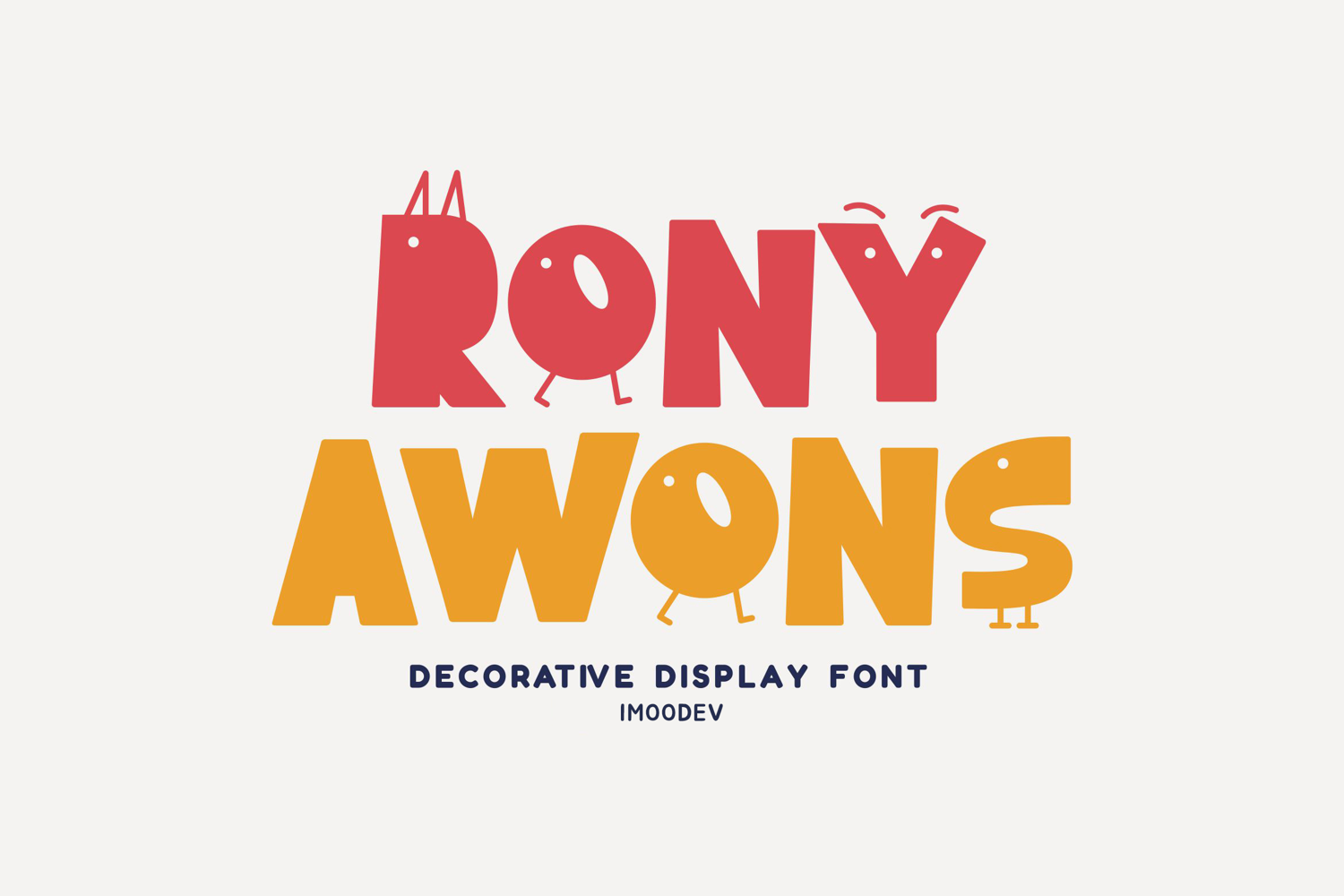
Rony Awons - Funny Decorative Font
Rony Awons is a playful decorative display typeface by chunky, blocky letterforms with quirky, animated elements like eyes, legs, hats, and expressive eyebrows. Each letter has a fun personality, almost like little characters that bring a sense of joy and whimsy to the text.
This font is ideal for children's books, playful branding, party invitations, stickers, mugs, posters, greeting cards, children content, children's book, animation, cartoon, headline, merchandise, and any creative project that wants to convey fun, positivity, and cheerfulness in a unique, eye catching way.